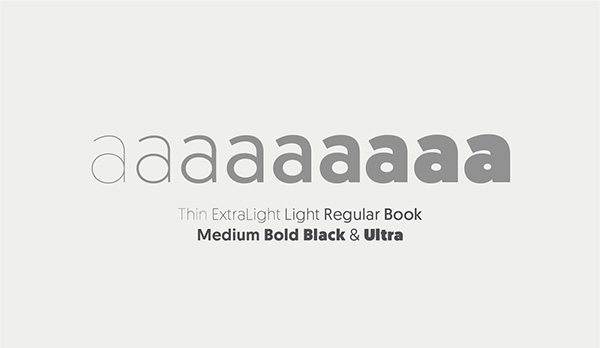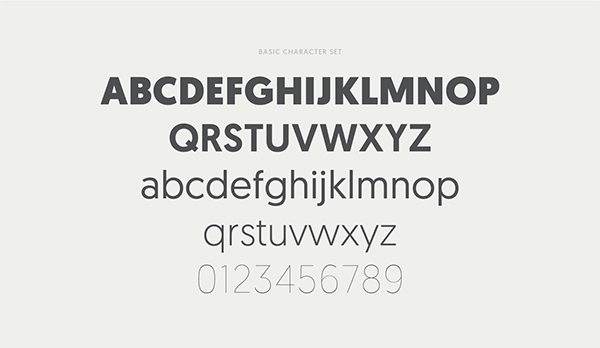
Fonts Free Font Of The Day #131 – geomanist Font by Yayang Apryana March 7, 2015 Geomanist Font has a contemporary sans design, clean and elegant, with a combination of geometric shapes and humanistic beat. Designed by atipo. Download